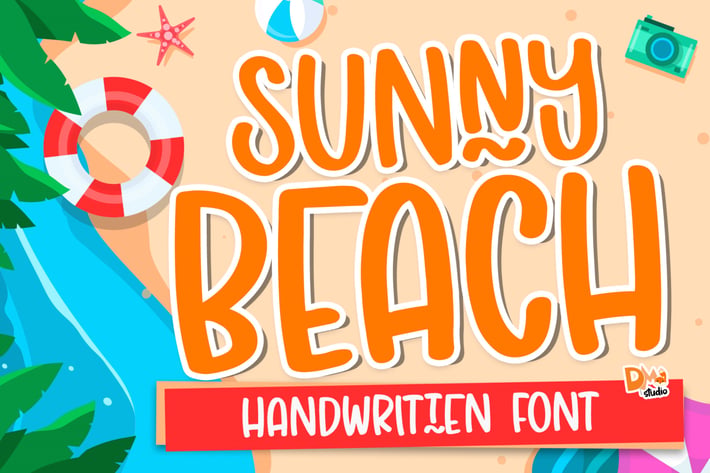
Sunny Beach - Crafty Handwritten Font
Sunny Beach is a font with summer theme, crafty, quirky, and cheerful handwritten style. Sunny Beach designed for you who loves making DIY projects, cutting, printing, sticker, social media posts, and much more!
- Lowercase ( for accessing the underlined letters )
- Numerals
- Symbols and Punctuation